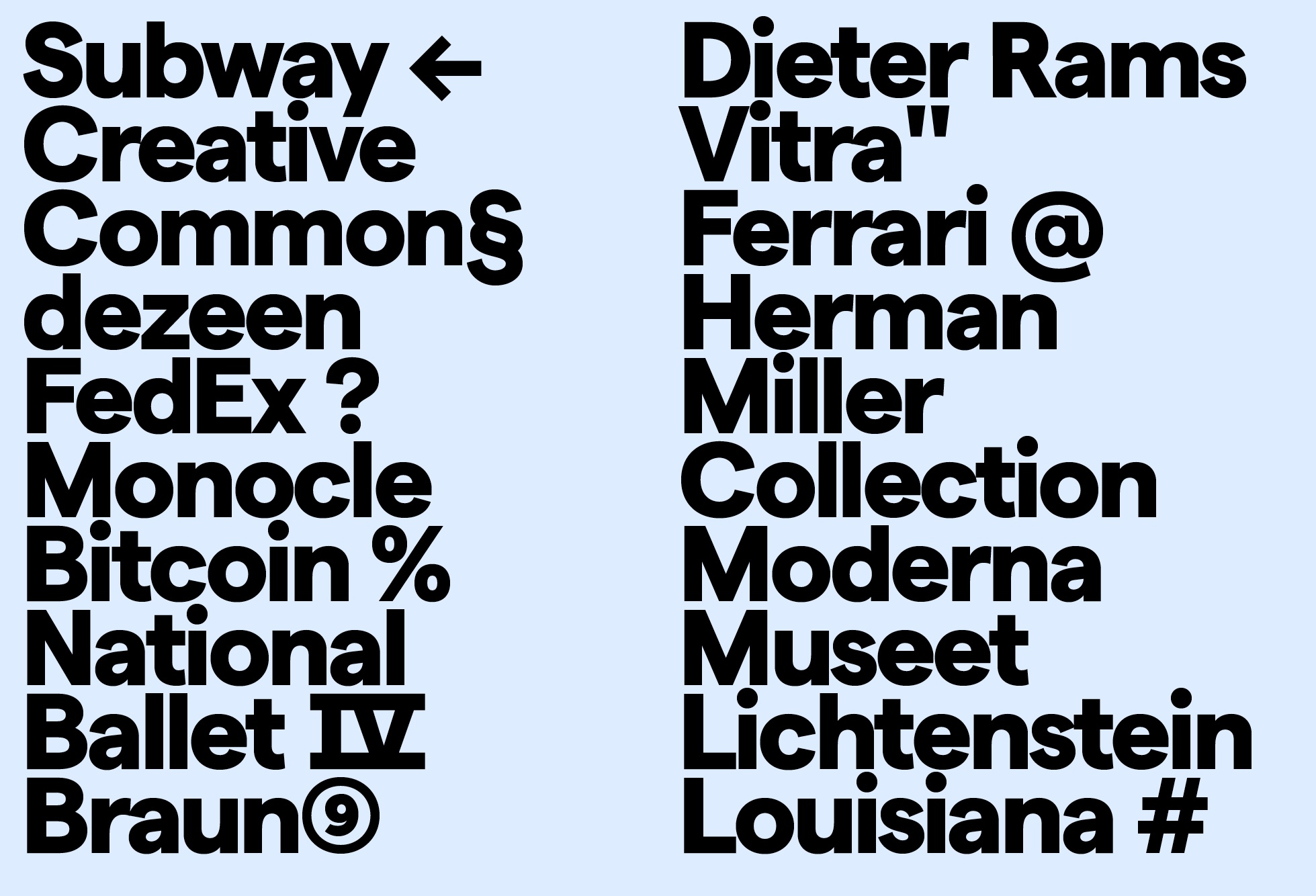
Matter Font
Matter Font is perfect for scientific research publications, physics textbooks, chemistry laboratory materials, academic journal layouts, matter science presentations, molecular structure diagrams, scientific conference posters, research documentation, technical analysis reports, scientific instrument labeling, physics education materials, and analytical projects that require precise, science-focused typography with academic authority and scientific sophistication.
What makes Matter Font so exciting is its scientific precision and academic authority that embodies the essential clarity and systematic rigor required for scientific communication and matter-based research documentation. This typeface features clean, analytical letterforms with scientific characteristics and precise proportions that ensure optimal readability in complex scientific contexts, research publications, and the demanding environments where scientific accuracy and academic credibility are paramount. The font's scientific character and matter appeal make it perfect for research institutions and scientific organizations that need typography as precise and reliable as their scientific methods and academic standards.
Matter Font typically comes in multiple weights and styles including Thin, Light, Regular, Medium, Semi-Bold, Bold, and Black variations. Many versions also include scientific symbols, mathematical ornaments, and research-themed decorative elements that enhance the font's scientific functionality and provide designers with comprehensive tools for creating professional, academically-focused typography compositions that meet scientific publishing standards.
Analyze with scientific precision using the academic excellence of Matter Font Free Download. This research-focused typeface brings together scientific methodology with contemporary design functionality, making it an essential tool for researchers, academics, and scientific professionals who need to create memorable, scientifically credible communications that resonate with academic audiences seeking rigorous research and scientific accuracy. The font's matter character ensures your scientific projects will convey research authority and academic precision.
Whether you're designing scientific publications, research presentations, or academic documentation, Matter Font delivers exceptional scientific authenticity and academic clarity that connects with researchers who demand the highest standards of scientific communication and scholarly precision. Its clean, systematic appearance works exceptionally well in both technical scientific applications and contemporary academic contexts, maintaining scientific rigor across diverse research and educational environments.
The precisely engineered letterforms of Matter Font showcase the ultimate expression of scientific typography and academic design principles. Each character has been optimized for maximum legibility in scientific environments while maintaining the systematic consistency that academic research requires, ensuring that your scientific communications remain accurate and professionally reliable for critical research documentation and scientific analysis applications.